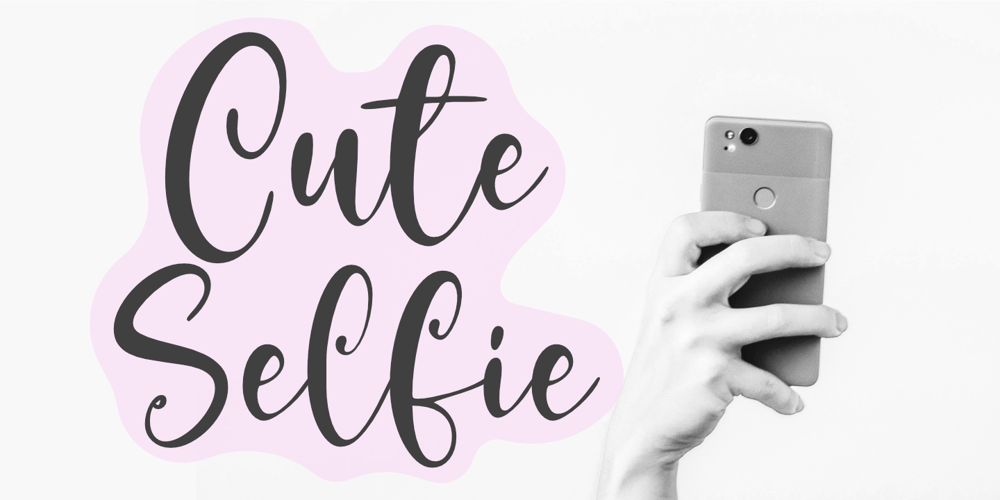
Cute Selfie Font Family was designed by Aldy Sidik and published by Epiclinez. Cute Selfie contains 1 styles and family package options. With its fun and playful style, Cute Selfie is perfect for all your creative projects! Whether you’re creating invitations, birthday cards, or just looking for a font that adds a little bit of personality to your work, Cute Selfie is the right choice. So what’s included : Standard Latin. Numbers, symbols, punctuations, and ligatures. Multilingual Support. PUA encoded and fully accessible without additional design software. Simple Installations. Works on PC & Mac. Thank You!